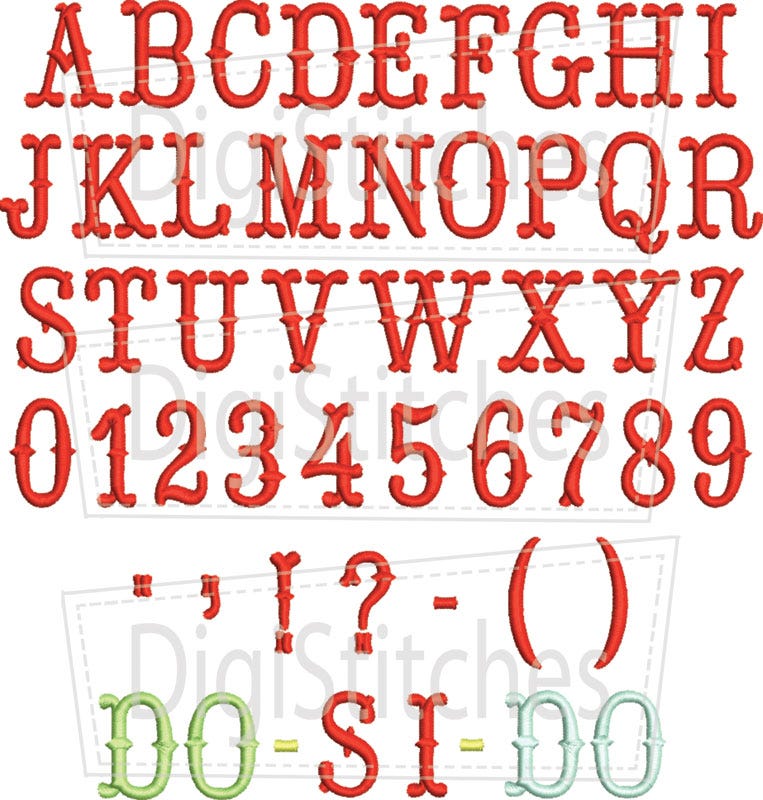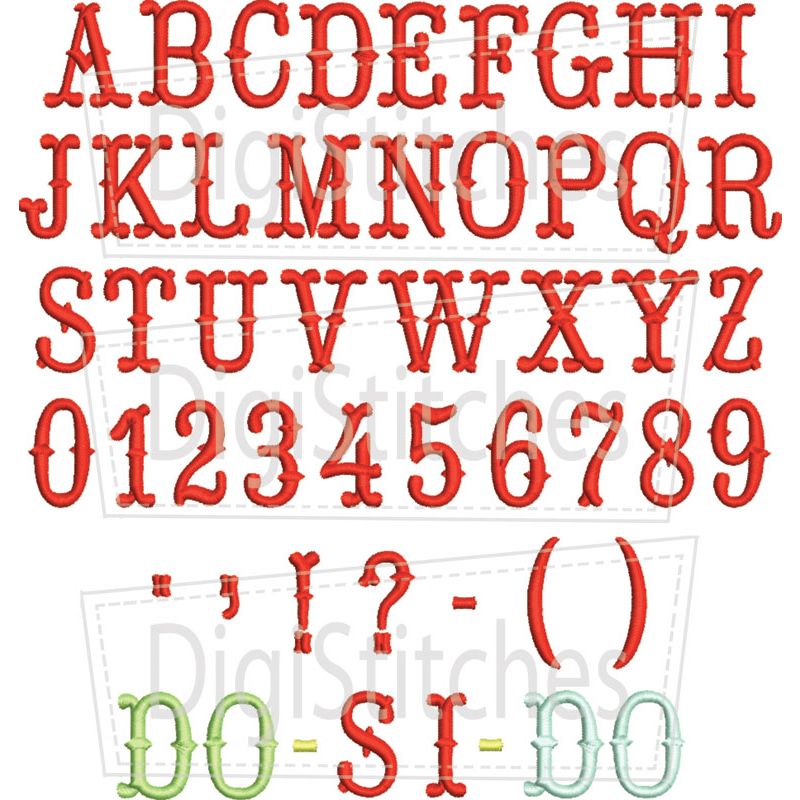
Do-Si-Do Embroidery Font
Do-Si-Do embroidery font is perfect for all of your Circus and Western themed projects.
Featuring bold letters that really satnd out on t-shirts and projects.
The Do-Si-Do Embroidery Font comes in 4 sizes! .75, 1.00, 1.25 and 1.50 inches. Size refers to the average height of the letters in the set.
Upper Case letters A thru Z, numbers 0-9 and punctuation as shown. Please see the description below for additional design information.